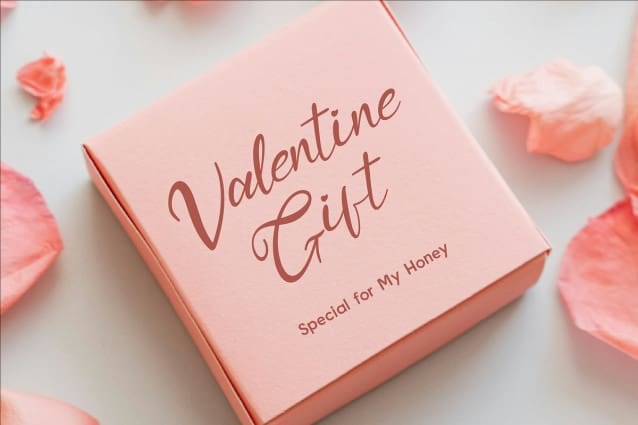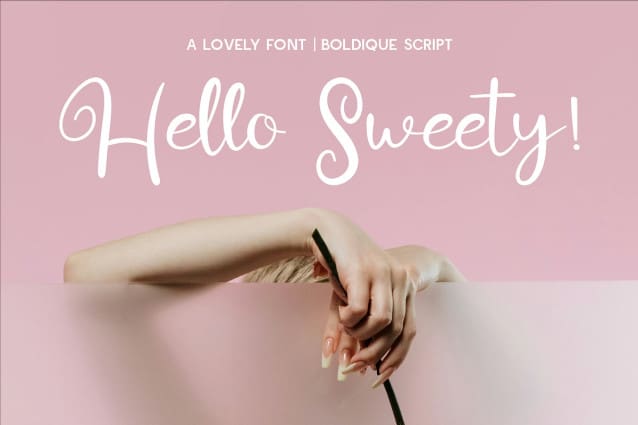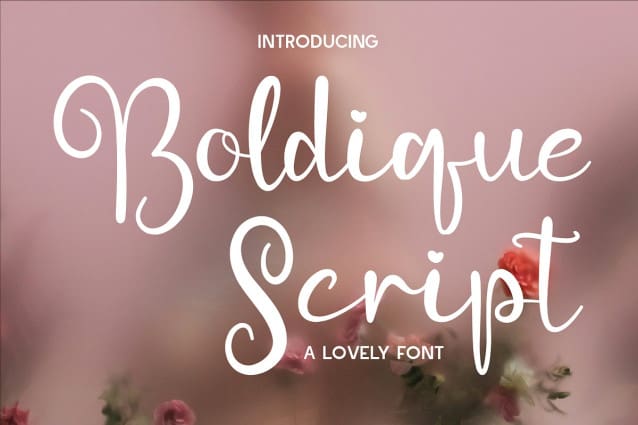
CF Boldique Font
CF Boldique Font – A Lovely and Playful Script Font Elevate your designs with Boldique Script, a charming and expressive script font that radiates elegance and warmth. With its fluid, handcrafted strokes and delightful heart-shaped details, this font brings a touch of romance and personality to any project. Designed to be versatile and visually captivating, Boldique Script seamlessly blends a modern calligraphic style with a casual yet refined aesthetic. The smooth curves, varying stroke thickness, and well-balanced letterforms make it perfect for branding, wedding stationery, social media graphics, product packaging, and more.